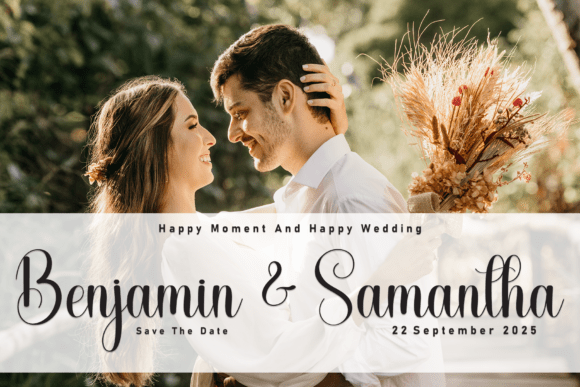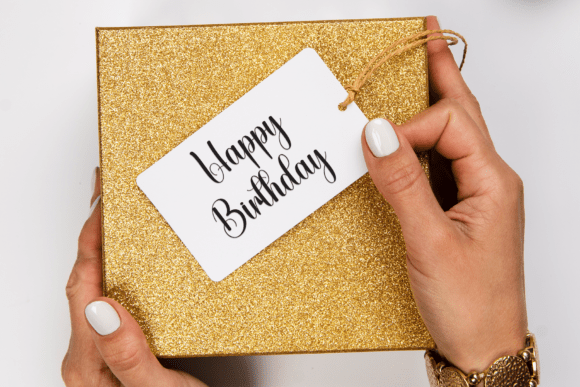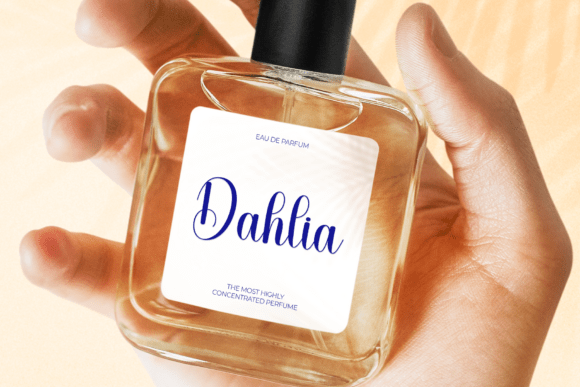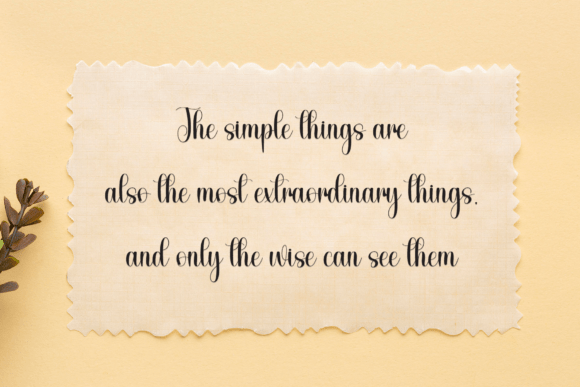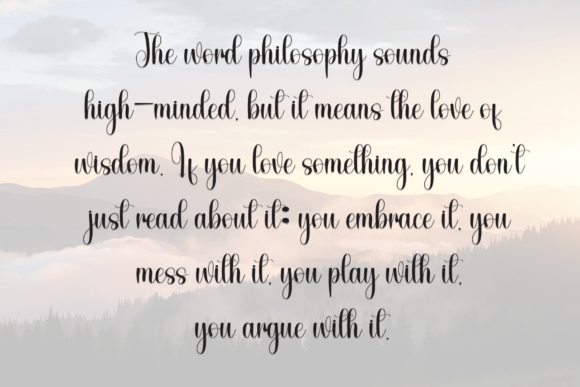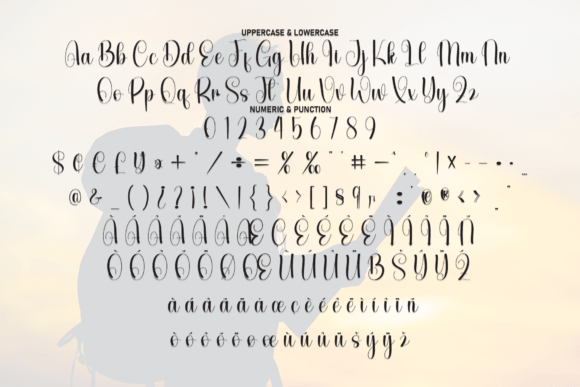
Introducing Book Silhouette Font: Elevate Your Designs with Elegance and Sophistication
In the world of typography, a well-crafted font can make all the difference in transforming a design from ordinary to extraordinary. For designers and crafters seeking to infuse their projects with a touch of elegance and modern charm, the Book Silhouette Font is an exceptional choice. This stylish script font is meticulously designed to bring a sense of refinement and sophistication to a wide range of applications, from logos and invitations to packaging and social media graphics.
The Essence of Book Silhouette Font
Book Silhouette Font stands out with its graceful strokes, fluid curves, and carefully crafted letterforms. It beautifully captures the essence of hand-drawn calligraphy but with a contemporary twist that appeals to modern design sensibilities. The font’s natural flow and polished details contribute to its versatility, making it suitable for various design projects that require a touch of class and elegance.
Key Features of Book Silhouette Font
- Elegant and Modern Design: Book Silhouette boasts a stylish and contemporary design that can instantly elevate the aesthetic of any project.
- Versatile Application: Its refined and sophisticated look makes it ideal for a variety of uses, including logos, invitations, packaging, and social media graphics.
- Hand-Drawn Calligraphy Feel: Despite its modernity, the font retains the charm of hand-drawn calligraphy, offering a unique and personal touch to designs.
- Easy to Read and Aesthetic: The careful crafting of each letterform ensures that the font is not only beautiful but also clear and readable, making it functional as well as visually appealing.
Applications of Book Silhouette Font
The versatility of Book Silhouette Font makes it a valuable asset for designers and crafters across various projects. Here are some of the key areas where this font truly shines:
- Logos and Branding: For businesses looking to establish a sophisticated brand image, Book Silhouette can be used to create memorable and elegant logos.
- Invitations and Stationery: Whether it’s wedding invitations, event invites, or personal stationery, this font adds a touch of class and personalization.
- Packaging: For product packaging that stands out on shelves, Book Silhouette can be used to add a label of luxury and quality.
- Social Media Graphics: Enhance your social media presence with elegant graphics that capture the attention of your audience.
Tips for Using Book Silhouette Font Effectively
To make the most of Book Silhouette Font, consider the following tips:
- Pair with Complementary Fonts: For optimal results, pair Book Silhouette with clean, sans-serif fonts to create a striking contrast.
- Adjust Letter Spacing: Customizing the letter spacing can enhance the flow and readability of your text, especially in longer pieces.
- Utilize Size Variations: Take advantage of the font’s versatility by using different sizes to create visual hierarchy in your designs.
Book Silhouette Font is a stylish and versatile script font that brings an unparalleled level of elegance and sophistication to any design project. Its graceful strokes, fluid curves, and modern charm make it an ideal choice for designers and crafters looking to create visually appealing and refined works. Whether you’re working on logos, invitations, packaging, or social media graphics, Book Silhouette Font is sure to elevate your designs and leave a lasting impression.
Embrace the beauty and versatility of Book Silhouette Font in your next project and discover how it can transform your designs with its unique blend of elegance, modernity, and charm.